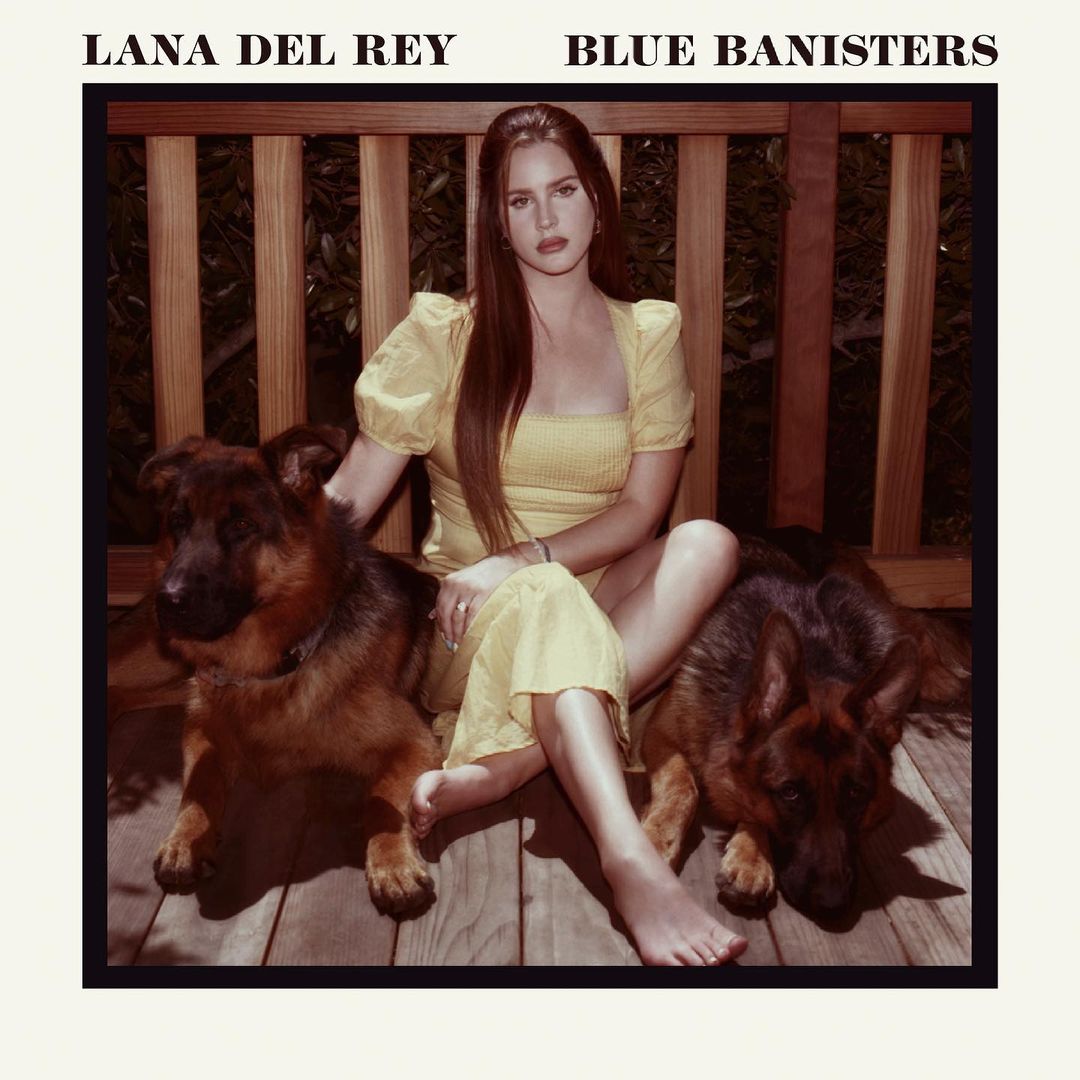
Blue Banisters Font
Fonts in UseBlue Banisters is the eighth studio album by American singer-songwriter Lana Del Rey, released in 2021. The album features 13 tracks that showcase Del Rey's signature dreamy and melancholic sound, with themes of love, loss, and reflection.
For the album title and artist name, Edward Benguiat's Modern No. 216, a high-contrast serif font, was utilized, which is offered in four weights along with corresponding italics.